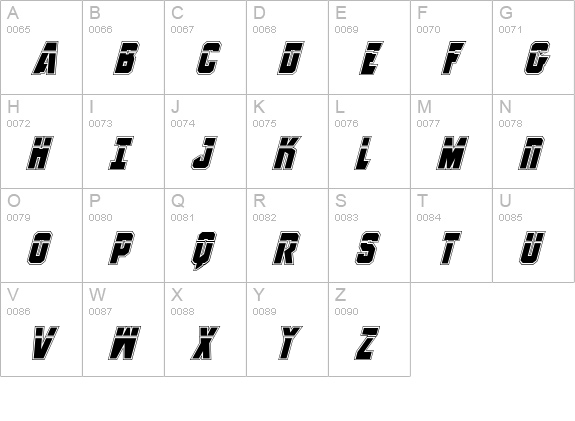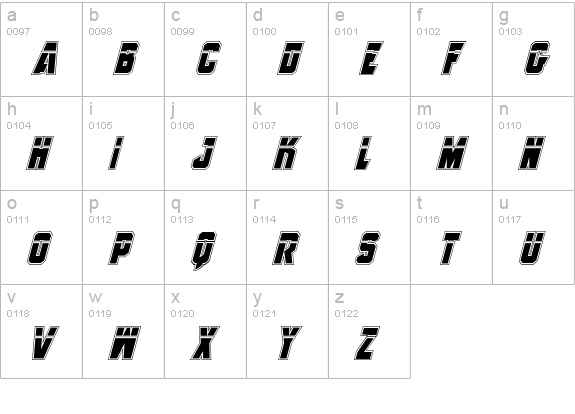
Anitlles Laser Academy Italic is a distinctive, italic variant in the Anitlles typeface family \xE2\x80\x94 well suited to design and typography projects.
Antilles Laser Academy Italic font embodies a perfect blend of sophistication and modernity, making it the ideal choice for projects that require an elegant touch. With its sleek lines and stylish curves, this font exudes a sense of professionalism and refinement. Whether used for branding, editorial design, or digital projects, Antilles Laser Academy Italic font effortlessly elevates the visual appeal of any text. The best part? Antilles Laser Academy Italic font is available for free download at FontsMarket.com, allowing you to enhance your designs without breaking the bank. Don't miss out on the opportunity to add this exquisite font to your collection and bring a touch of class to your creative endeavors.